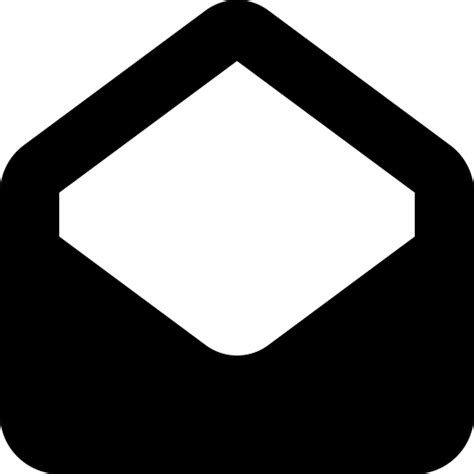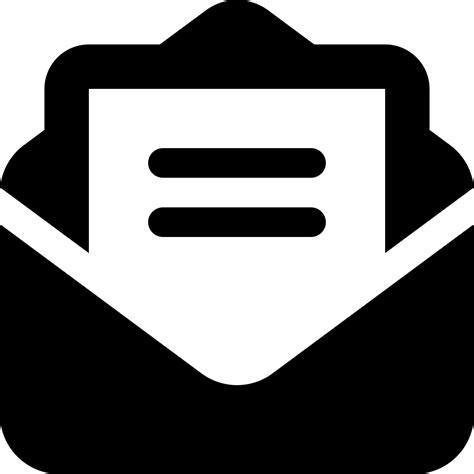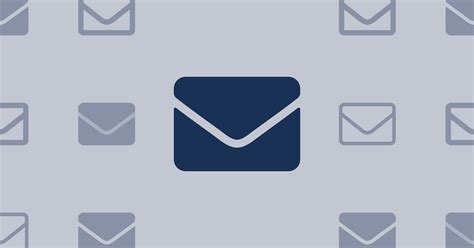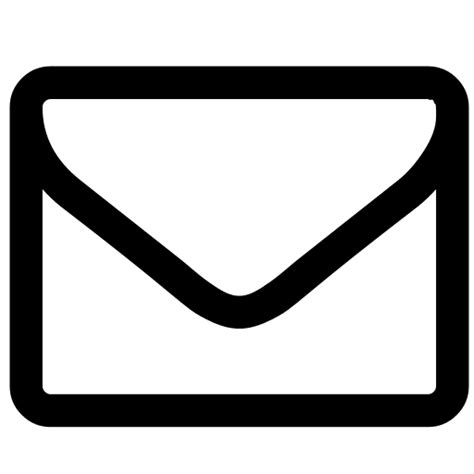
Envelope Font Awesome
Envelope Font Awesome - Font awesome icons version 4.7. Make a bold statement in small sizes. Web the w3schools online code editor allows you to edit code and view the result in your browser Available now in font awesome 6. Web envelope icon in the solid style. Font awesome is completely free for commercial use. Font awesome icons version 4.7. This font awesome icon is also. Web font awesome envelope o icon refers to a flat paper container, usually (such as for a letter). Web free, as in speech.
Make a bold statement in small sizes. Font awesome icons version 4.7. Font awesome is completely free for commercial use. This font awesome icon is also. Paste the svg right into your project's code. Web the w3schools online code editor allows you to edit code and view the result in your browser Official open source svg icon library. Available now in font awesome 6. Web free, as in speech. Font awesome icons version 4.7.
Official open source svg icon library. Web envelope icon in the solid style. Web font awesome envelope o icon refers to a flat paper container, usually (such as for a letter). Paste the svg right into your project's code. Make a bold statement in small sizes. This font awesome icon is also. Web the w3schools online code editor allows you to edit code and view the result in your browser Available now in font awesome 6. Web free, as in speech. Font awesome icons version 4.7.
Font awesome icons version 4.7. Web free, as in speech. Web font awesome envelope o icon refers to a flat paper container, usually (such as for a letter). Paste the svg right into your project's code. Available now in font awesome 6.
Envelope Solid Icon Font Awesome
Font awesome icons version 4.7. Web envelope icon in the solid style. Web font awesome envelope o icon refers to a flat paper container, usually (such as for a letter). Available now in font awesome 6.
Envelope Open Text Icon Font Awesome
Web envelope icon in the solid style. Font awesome icons version 4.7. Web the w3schools online code editor allows you to edit code and view the result in your browser Font awesome is completely free for commercial use. Font awesome icons version 4.7.
FileEnvelope font awesome.svg Wikimedia Commons
Web free, as in speech. Font awesome icons version 4.7. Web the w3schools online code editor allows you to edit code and view the result in your browser Available now in font awesome 6. Font awesome icons version 4.7.
Envelope Open Icon Font Awesome
Font awesome is completely free for commercial use. Make a bold statement in small sizes. Official open source svg icon library. This font awesome icon is also. Font awesome icons version 4.7.
Envelope Vector Svg Message Icon Font Awesome Free Transparent PNG
Web the w3schools online code editor allows you to edit code and view the result in your browser Official open source svg icon library. Available now in font awesome 6. Font awesome icons version 4.7. Font awesome icons version 4.7.
Envelopes Bulk Solid Icon Font Awesome
Web the w3schools online code editor allows you to edit code and view the result in your browser Font awesome icons version 4.7. Web envelope icon in the solid style. Make a bold statement in small sizes. This font awesome icon is also.
Font Awesome Envelope Open Text Icon Font Awesome Iconpack Font
Make a bold statement in small sizes. Web envelope icon in the solid style. Web the w3schools online code editor allows you to edit code and view the result in your browser Available now in font awesome 6. Font awesome icons version 4.7.
Icon Envelope Font Awesome, PNG, 512x512px, Email, Black, Black And
Web the w3schools online code editor allows you to edit code and view the result in your browser Font awesome icons version 4.7. This font awesome icon is also. Paste the svg right into your project's code.
Web Font Awesome Envelope O Icon Refers To A Flat Paper Container, Usually (Such As For A Letter).
Web envelope icon in the solid style. Official open source svg icon library. Web free, as in speech. Web the w3schools online code editor allows you to edit code and view the result in your browser
Available Now In Font Awesome 6.
Paste the svg right into your project's code. Make a bold statement in small sizes. Font awesome icons version 4.7. Font awesome icons version 4.7.
This Font Awesome Icon Is Also.